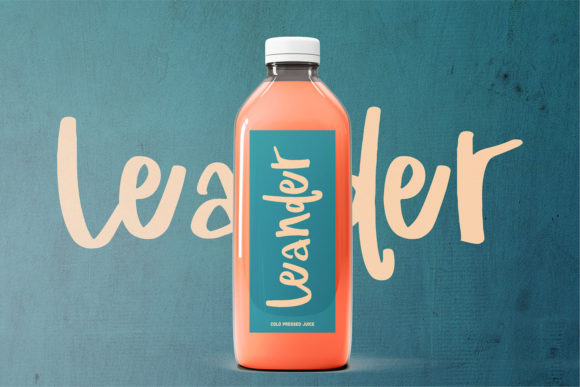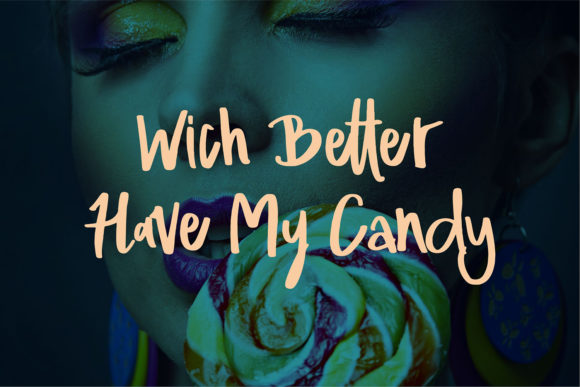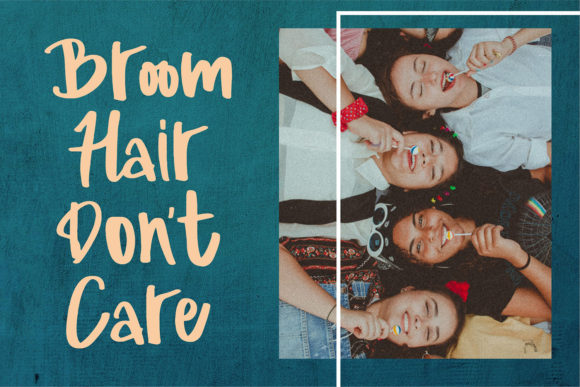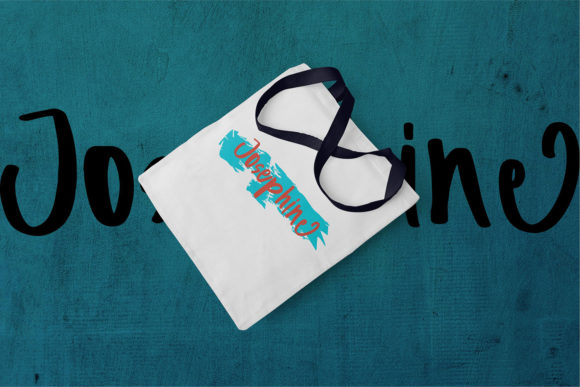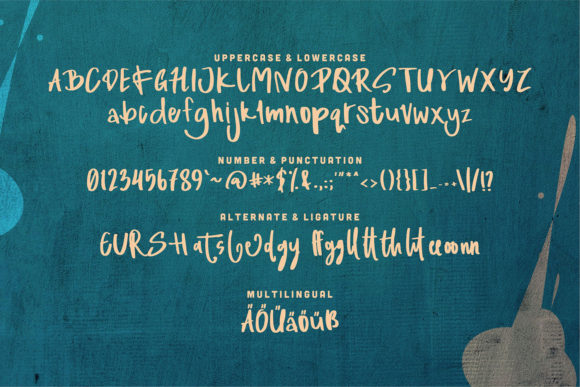
Introduction to Rastie Font
Rastie is a relaxed and adaptable handwritten font.
Whether youโre using it for crafting, digital designing, presentations or greeting cards making, itโs perfect .
Key Features of Rastie Font